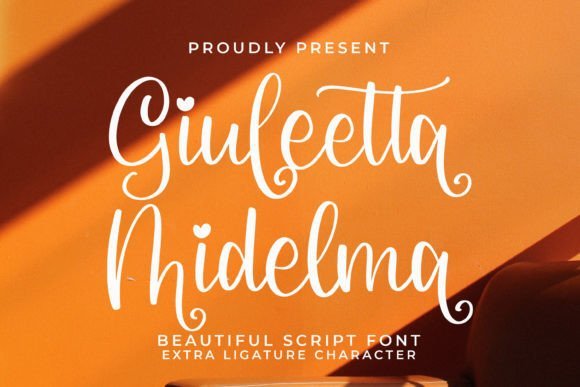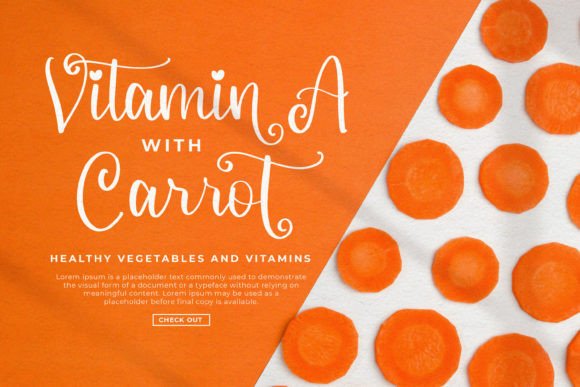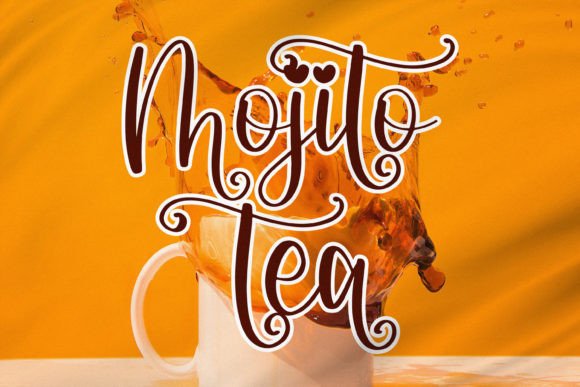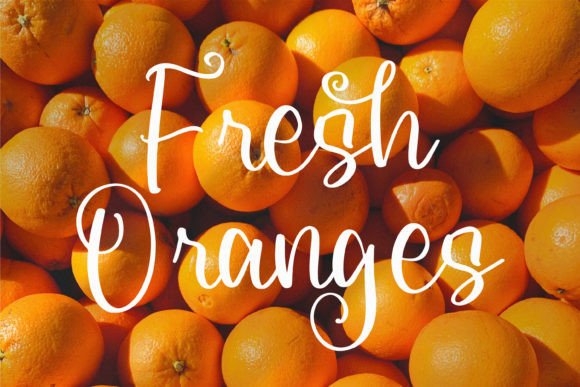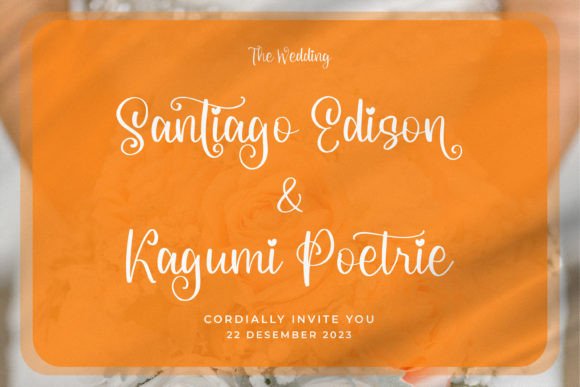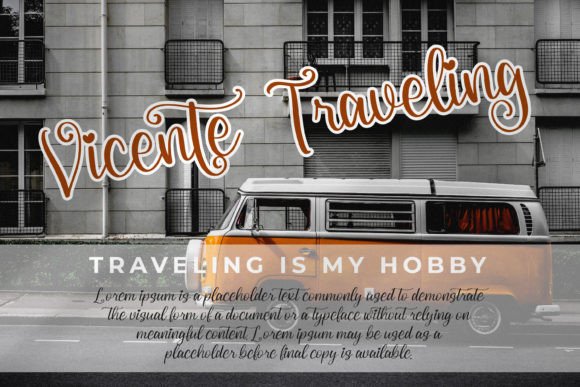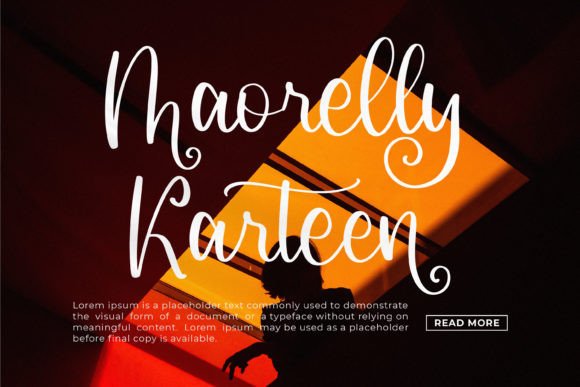
Discover the Perfect Script for Luxury Projects
Have you ever stared at a blank canvas, waiting for inspiration to strike? That’s exactly what happened to me when I was working on a branding project for a high-end boutique. I wanted to create something truly special, but the right font seemed elusive. That’s when I stumbled upon the Giuleetta Midelma Font – a premium script font that changed everything.
The Giuleetta Midelma Font is a stunning script font designed for luxury projects that demand a touch of elegance. Whether you’re creating logos, branding projects, or product packaging, this font is sure to elevate your design to new heights. Its beautiful script style is perfect for adding a premium touch to your work, making it a valuable asset for designers who want to create high-end designs.
Giuleetta Midelma Font Key Features
- Font Family: Giuleetta Midelma is a script font family, suitable for formal and elegant designs.
- Unique Characteristics: Features flowing connections, elegant swashes, and decorative flourishes, ideal for invitations, wedding designs, and luxury branding.
Giuleetta Midelma Font Review
As a designer, I was excited to dive into the Giuleetta Midelma font and see what it had to offer. After spending some time with it, I have to say that there are some ✨ standouts.
One of the things I love about Giuleetta Midelma is its unique blend of modern and vintage flair. The font has a nice balance of geometric shapes and organic feel, making it perfect for projects that need a touch of sophistication. The font also has a wide range of weights and styles, from light to bold, which makes it versatile and easy to use.
Some of the key features that work well for me include:
- ✨ Unique blend of modern and vintage flair
- ✨ Wide range of weights and styles
- ✨ Perfect for projects that need a touch of sophistication
- ⚠️ The font can be a bit too ornate for some projects, which may make it difficult to read at smaller sizes
- ⚠️ Some of the weights and styles may feel a bit inconsistent, which can make it difficult to achieve a cohesive look
Overall, I think Giuleetta Midelma is a solid choice for designers who are looking for a unique and versatile font. While it may have some limitations, the benefits far outweigh the drawbacks.
Tips for Getting the Most Out of Giuleetta Midelma
To get the most out of Giuleetta Midelma, consider the following tips:
- Use it for headings and titles to add a touch of elegance.
- Pair it with other fonts to create a unique and interesting combination.
- Experiment with different font sizes and colors to add visual interest.
Carolyna Pro is a beautiful, elegant script font that is perfect for luxury brands, high-end products, and fine art designs. It features a flowing and cursive style that adds a touch of sophistication and glamour.
Compared to Giuleetta Midelma Font, Carolyna Pro has a more refined and luxurious feel, whereas Giuleetta Midelma Font has a more playful and whimsical tone.
Great Vibes is a stylish and modern script font that works well for titles, headings, and short paragraphs. It has a lively and energetic feel, making it suitable for designs that require a touch of fun and playfulness.
Q: What is the recommended font size range for Giuleetta Midelma?
The recommended font size range for Giuleetta Midelma is between 12pt and 24pt. This range allows the font to be legible and effective in a variety of applications, from body text to headlines. However, the optimal font size will depend on the specific design requirements and the intended use of the font.